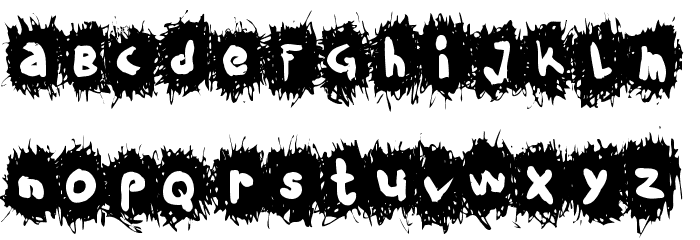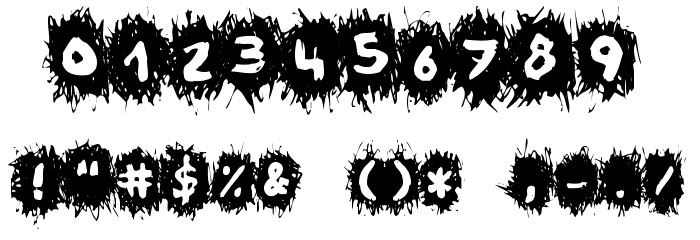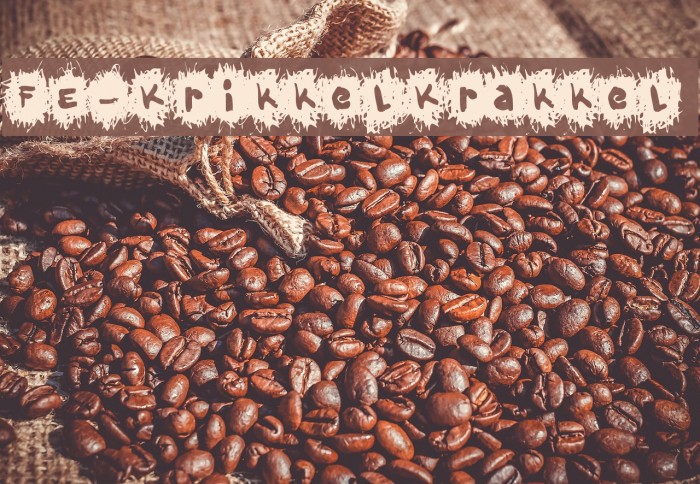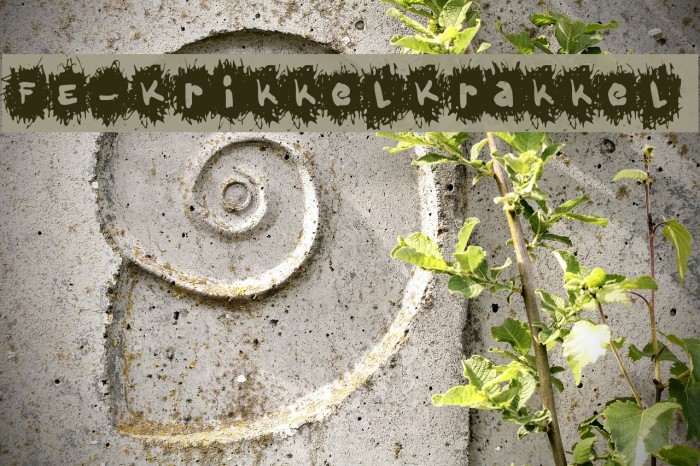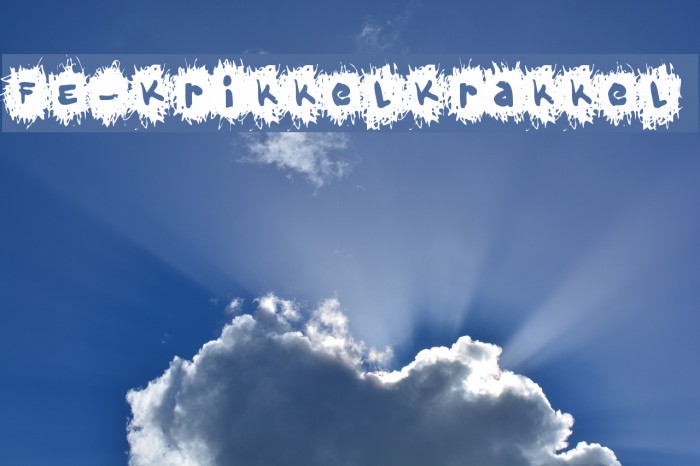
FE-KrikkelKrakkel Font
This font features a highly decorative and chaotic style, with each character appearing as if it is surrounded by a dense, scribbled outline. The letters are bold and stand out against the intricate background, creating a striking contrast. The design is playful and energetic, making it suitable for creative and unconventional projects. The uppercase and lowercase letters maintain a consistent style, while the numbers and special characters follow the same dynamic pattern. This font is ideal for projects that require a bold statement and a touch of whimsy.
A bold, chaotic font with a scribbled, decorative outline.
- Proposed Projects: Ideal for posters, album covers, children's book titles, and creative branding.